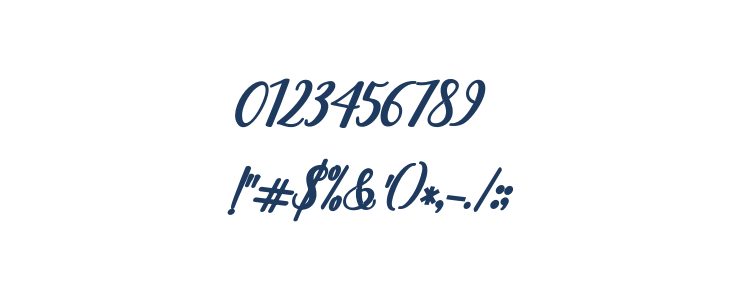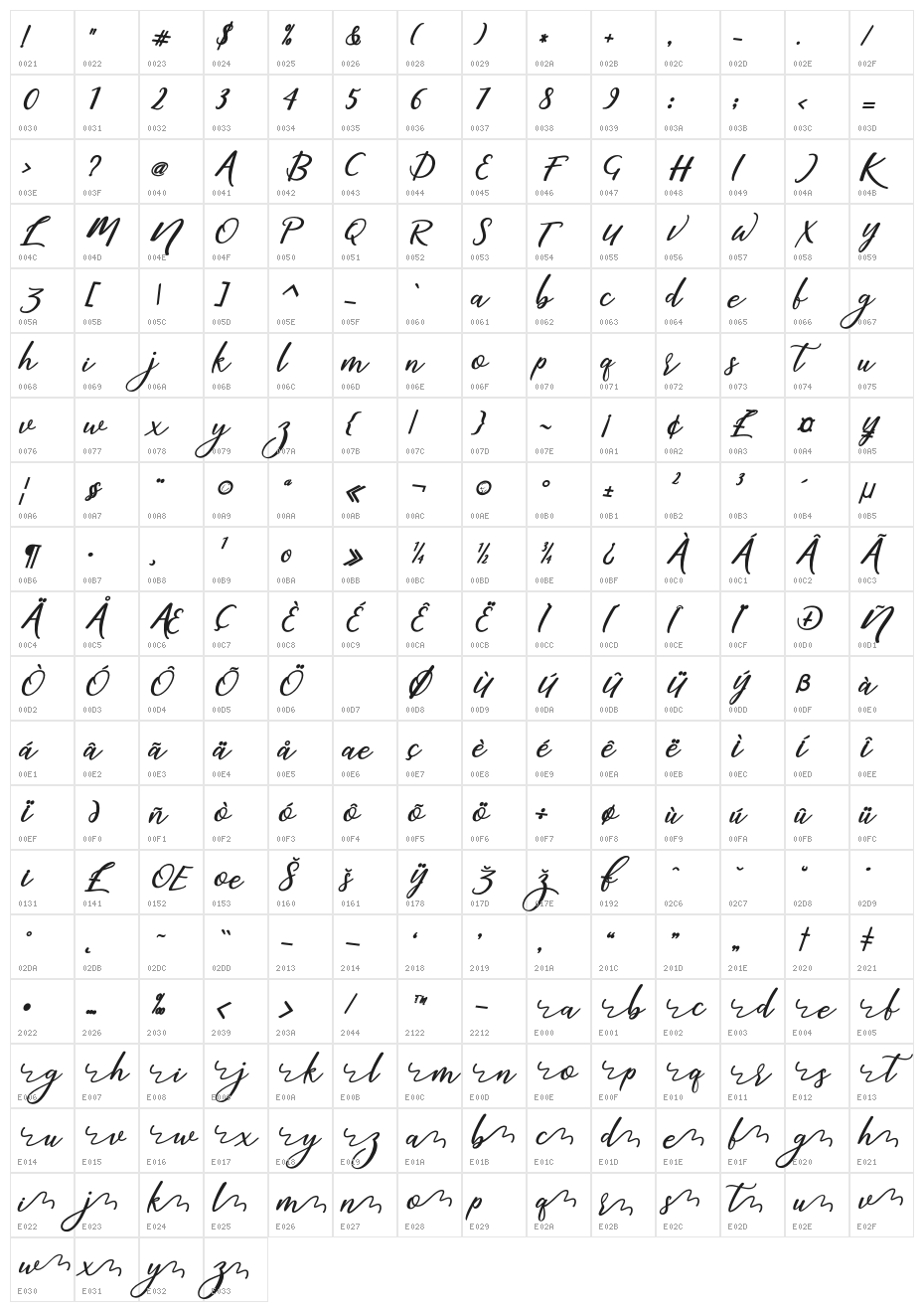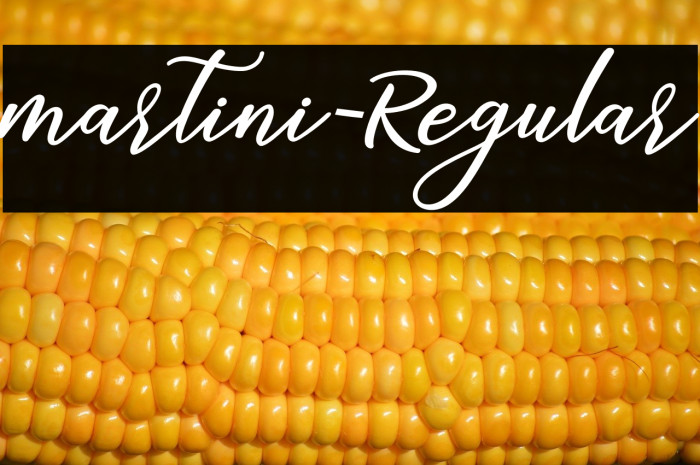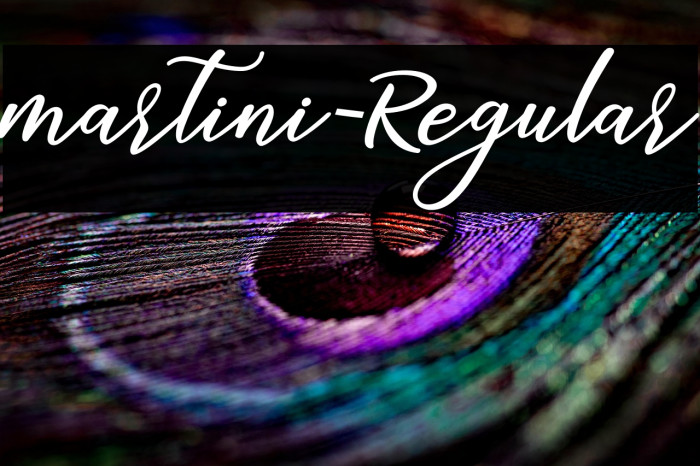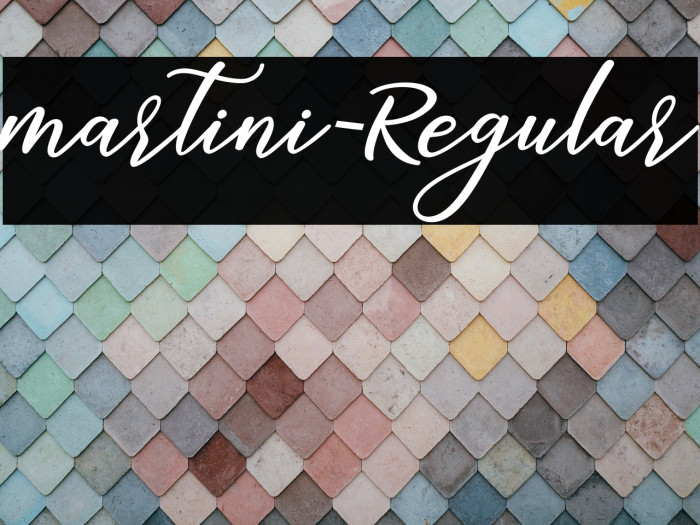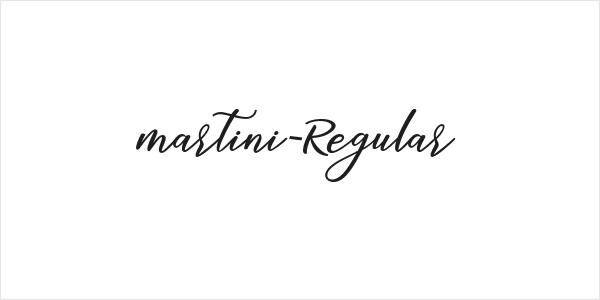
martini-Regular Font
martini-Regular Description
This font exudes a sophisticated and elegant style, characterized by its fluid, cursive script. The letters are connected with smooth, flowing lines, giving it a handwritten appearance. The uppercase letters are bold and slightly slanted, while the lowercase letters maintain a consistent flow with subtle flourishes. The numerals are distinct and easy to read, complementing the overall aesthetic. Special characters are crafted with the same attention to detail, ensuring a cohesive look across all symbols. This font is perfect for adding a touch of elegance and personality to any project.
| Proposed Projects | Ideal for wedding invitations, elegant branding, personal stationery, and artistic projects. |